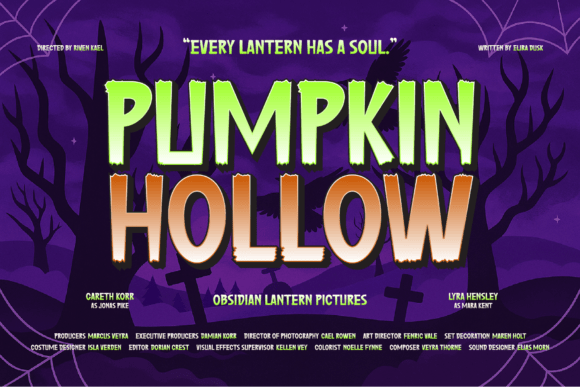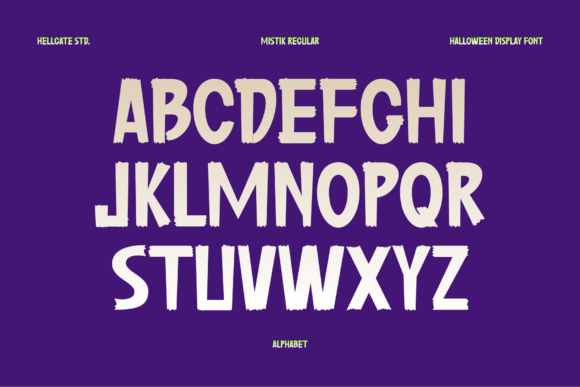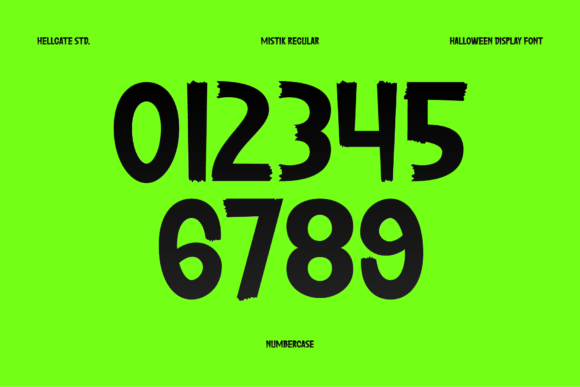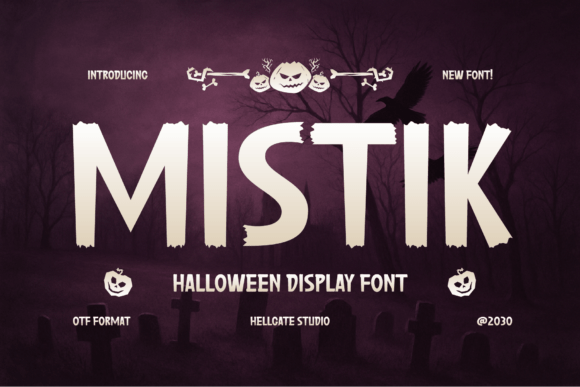
Introduction to Mistik Font
Unveil the uniquely chilling allure of the Mistik Halloween display font, tailor-made for your experimental themed projects.
This single variation font prides itself for its seamless customizability of text and color, allowing you to calibrate its unique aura to perfectly suit your design vision Delivered in premium, high-quality Render OTF format, the Mistik Halloween Display Font adds an uncanny yet captivating charm to your typography arsenal.
Key Features of Mistik Font